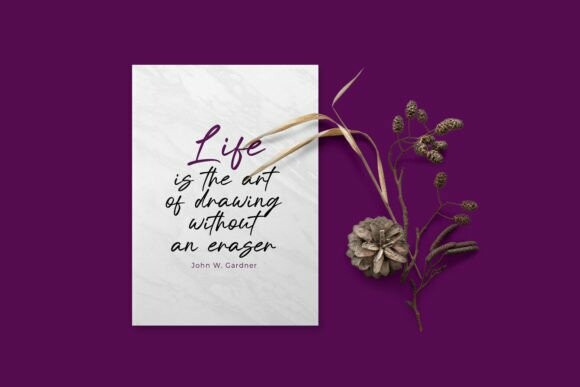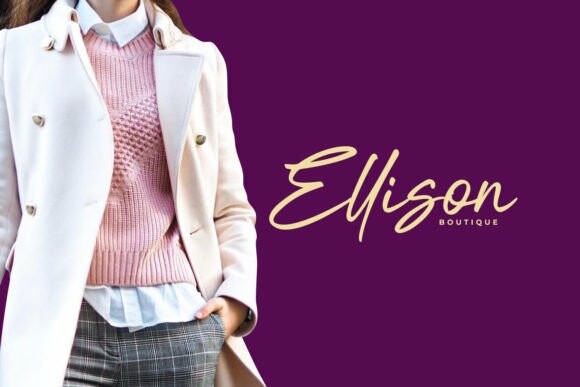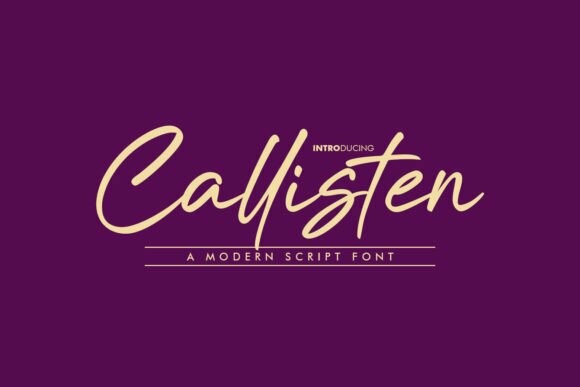
Callisten Font
Callisten Font is a delicate and refined script font that emanates sophistication and elegance. Perfect for posters, logos, magazines, book covers, banners, and many more! Get this amazing font, and use it to create lovely designs. It can easily be matched to an incredibly large set of projects, so add it to your creative ideas and notice how it makes them stand out!